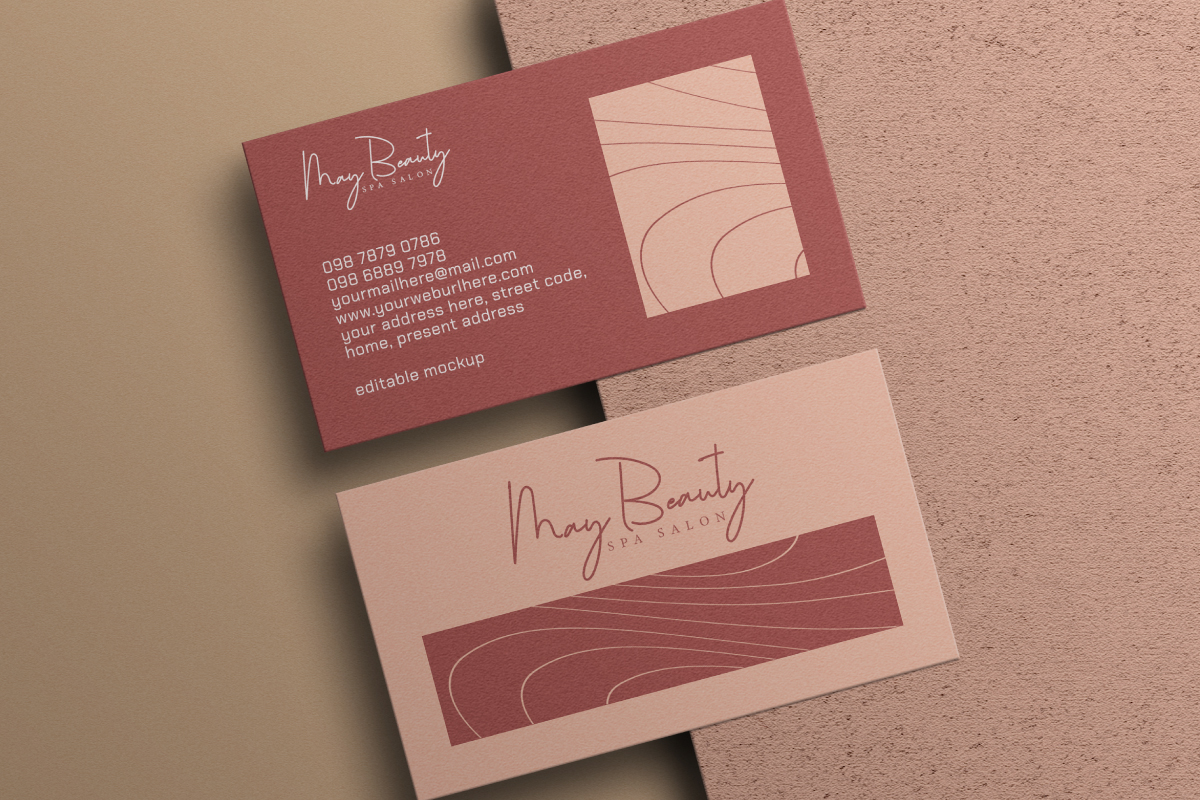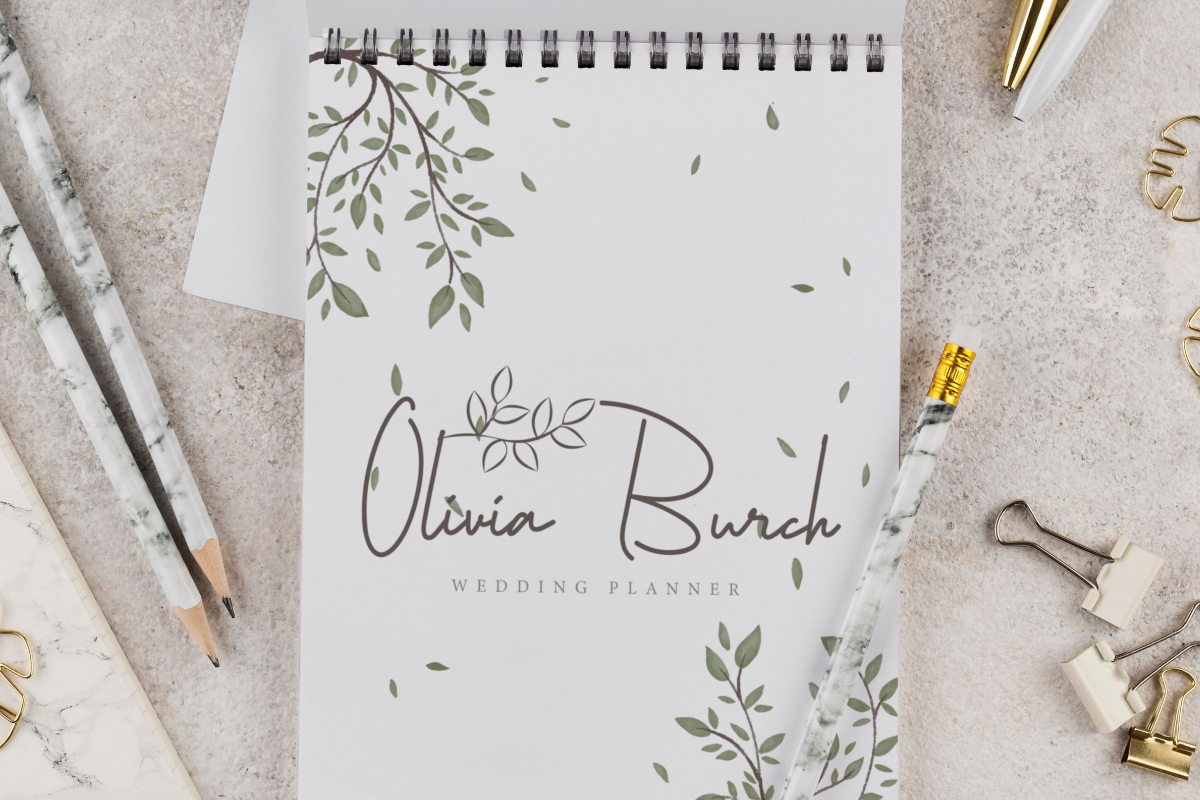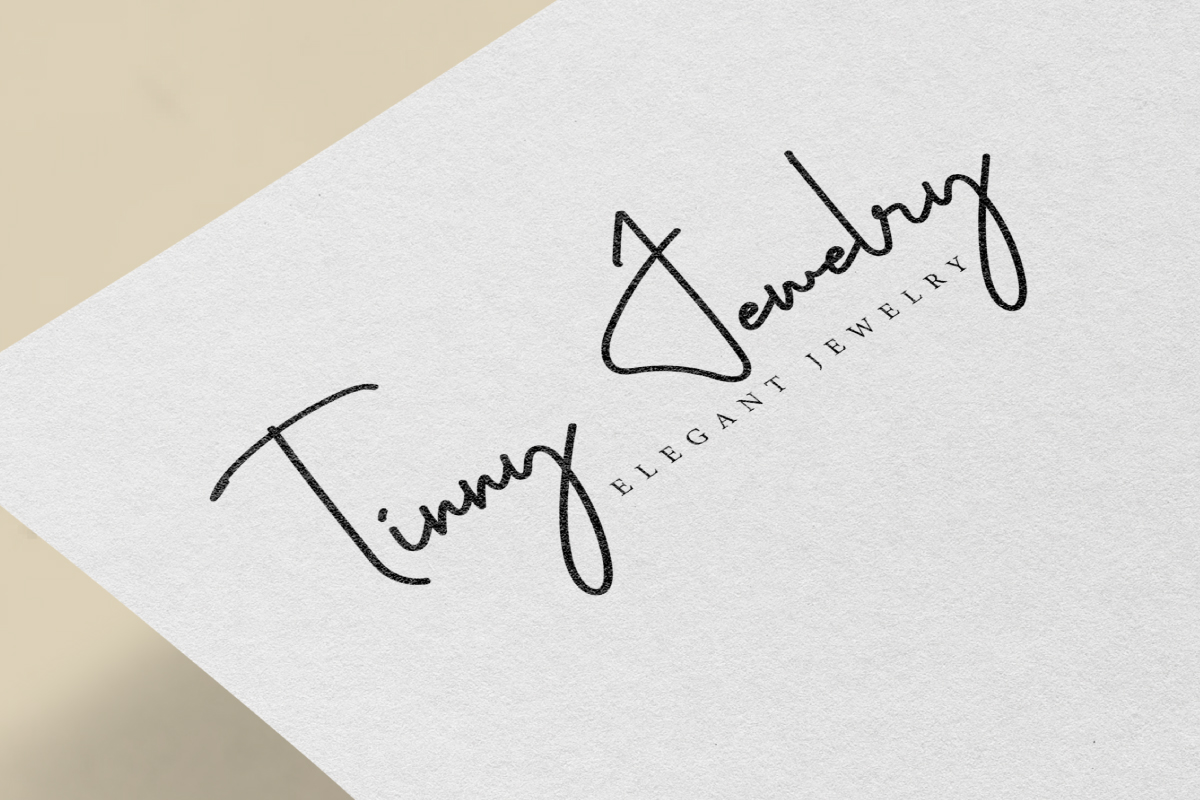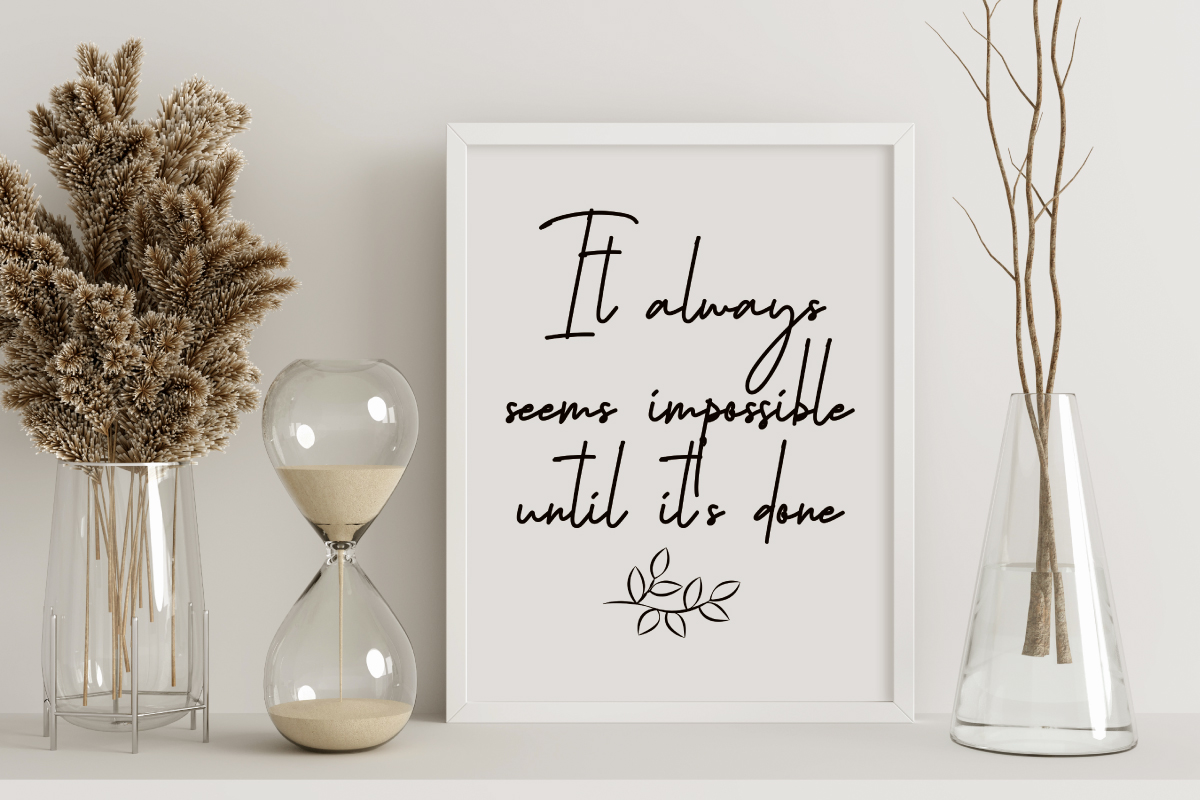
Philosophe Signature Font
Philosophe Signature Script Font
This is a modern signature handwritten font with stylish look created by EdricStudio. This typeface has sleek and tall lines that will bring out undeniable beauty and suitable for industries like : architect, event tenant, florist, furniture, jewelry, photography, resort, salon and spa, wedding, writer, etc.
Philosophe Signature Font comes with a full set of Uppercase and Lowercase Basic Characters, Number, a large range of Punctuation and Symbol, Ligature. It has a stunning characters set, perfectly managed with well spaced and kerning. Philosophe Signature Font will take your project to another level and is perfect for business card, label, packaging design, printed materials, quotes, title, etc.